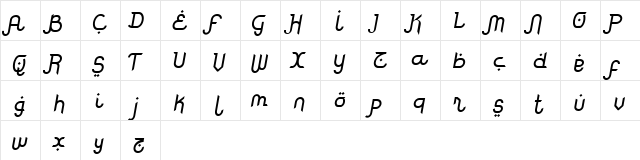
Rodja Alt End Slanted Font Preview
Design Context for Rodja Alt End Slanted Typeface
Rodja Alt End Slanted is a composed and adaptable typeface that performs quietly and consistently across a wide range of design contexts. Its italic angle brings a sense of urgency and motion to the letterforms.
Pro Tip: Use Rodja Alt End Slanted for emphasis, pull quotes, and subheadings where its slanted energy can add rhythm to the layout.